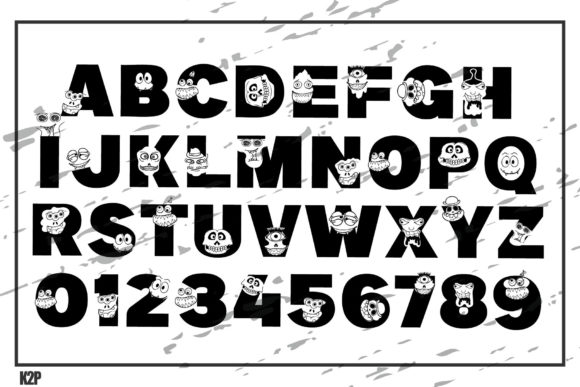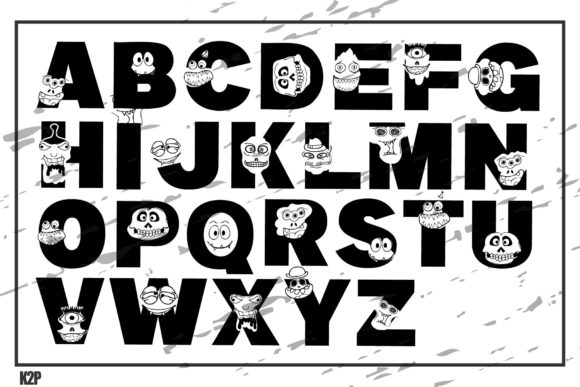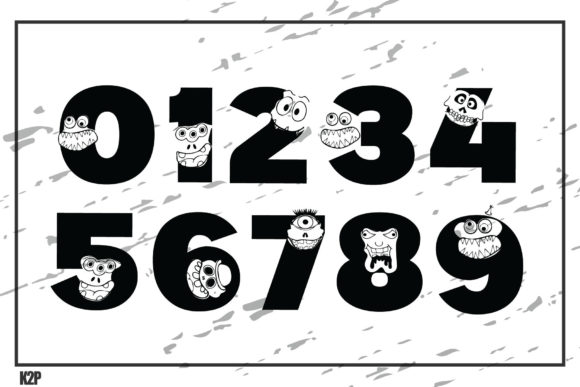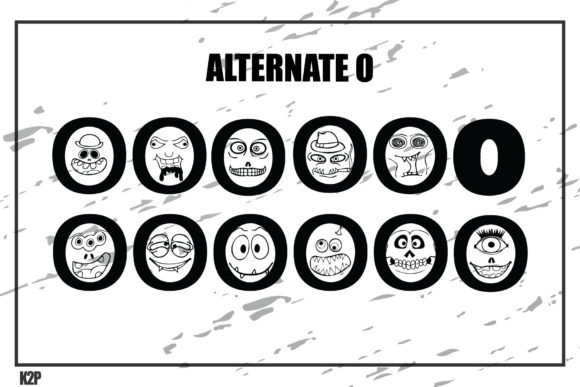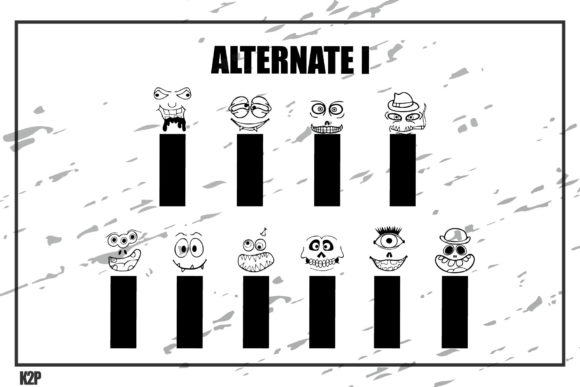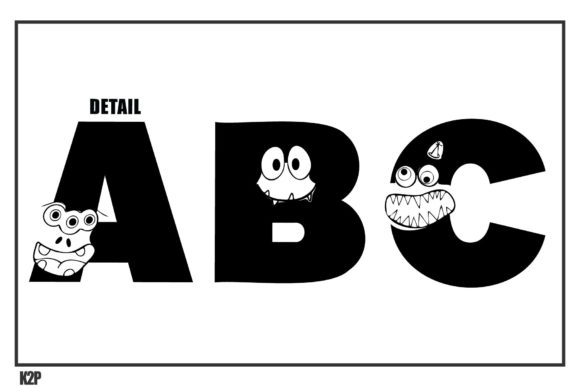
Introduction to MonsterZ Font
MonsterZ is a thick-lettered and spooky decorative font.
It is perfectly suitable for any Halloween-related project or crafty idea This font is PUA encoded which means you can access all glyphs and swashes with ease.